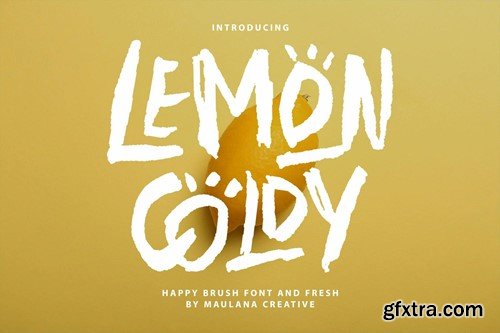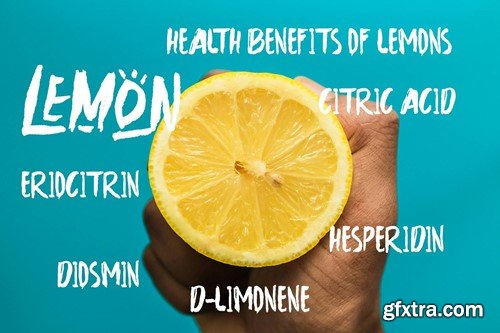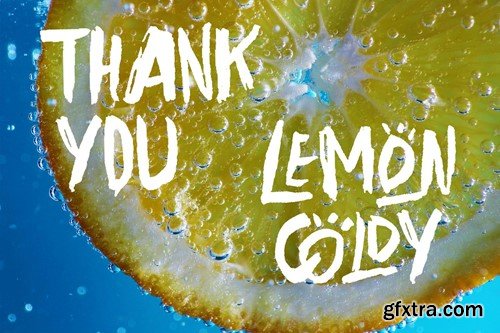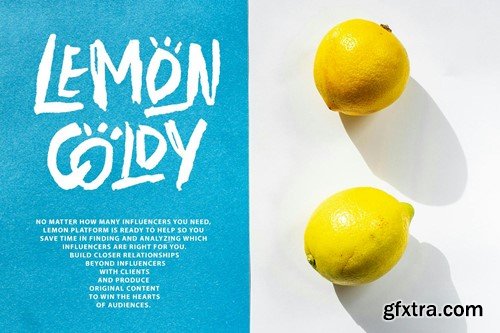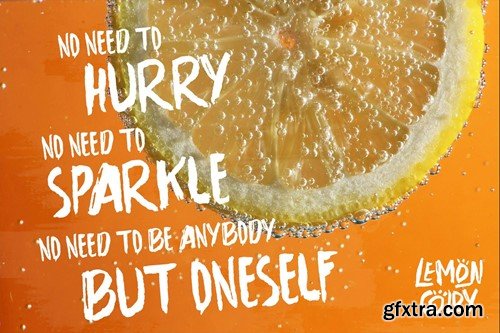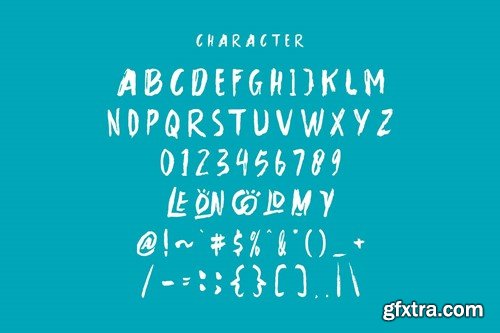
Lemon Coldy Brush Font
Lemon Coldy brush display font. With three weight stroke, fun character with a bit of ligatures. To give you an extra creative work. Lemon Coldy brush display font. support multilingual more than 100+ language. This font is good for logo design, Social media, Movie Titles, Books Titles, a short text even a long text letter and good for your secondary text font with sans or serif. Make a stunning work with Lemon Coldy brush display font. What you get: Cheers, Maulana Creative